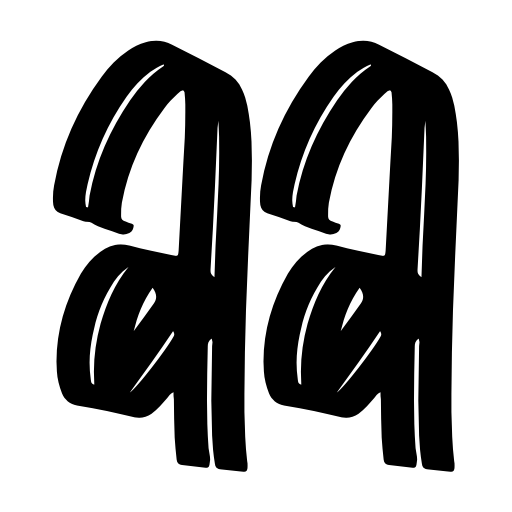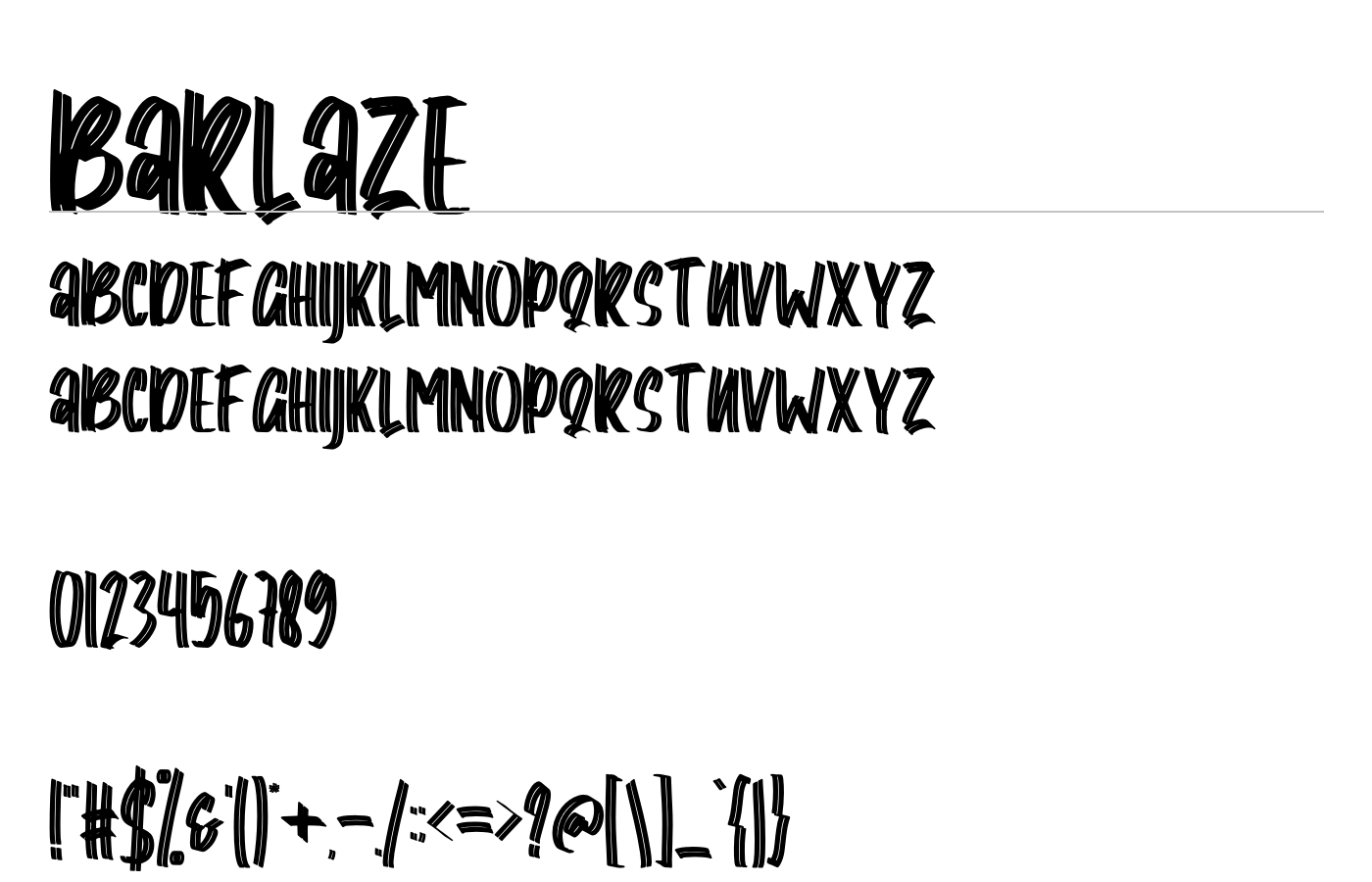
Barlaze is a bold, condensed sans serif font with a playful, hand-drawn style that feels energetic and informal. Its irregular, brush-like strokes and tight spacing give it a dynamic, youthful personality perfect for creative projects, headlines, and branding that want to stand out with a casual, artistic vibe. This font works well for posters, logos, and designs that aim to capture attention with a fun and lively look.
Barlaze Font
About Barlaze Font